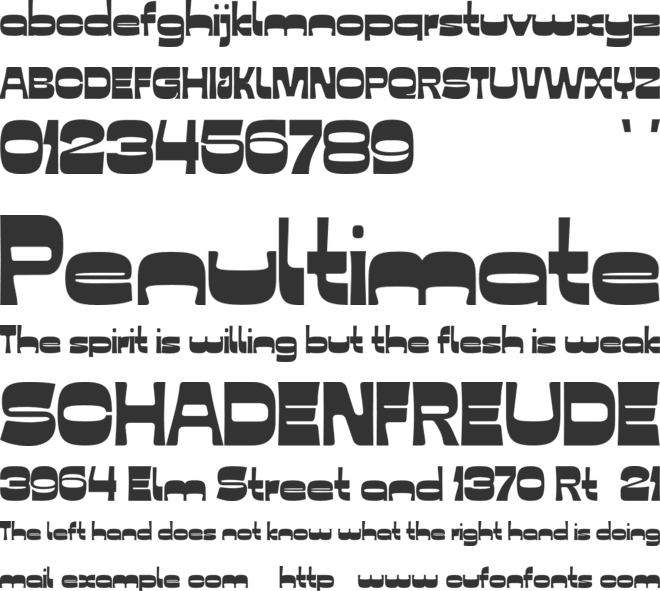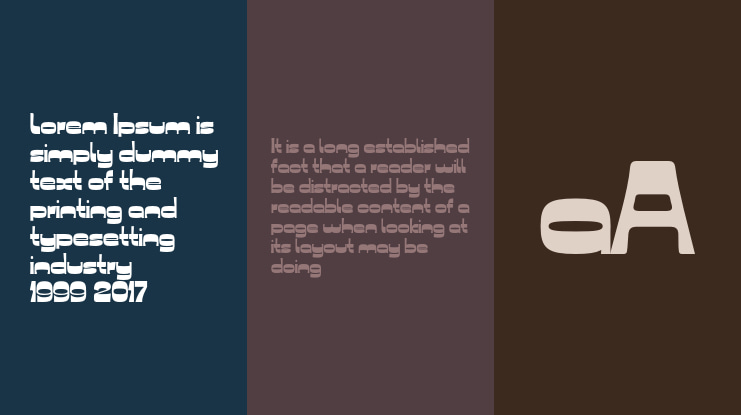
Sunn Free Version Font
SUN – Neo Psychedelic Display Font
SUN is a bold neo-psychedelic display font inspired by retro futurism, desert culture, folk symbolism, and experimental typography. Designed with strong geometric forms, unique rounded corners, and highly recognizable silhouettes, SUN delivers an expressive visual identity perfect for modern branding and statement-making designs.